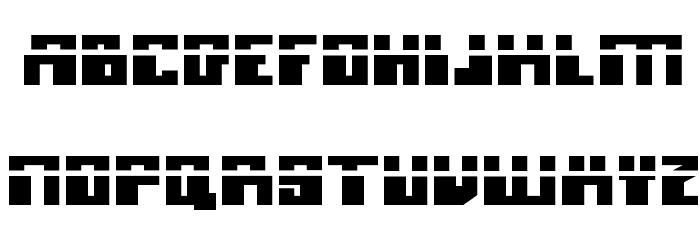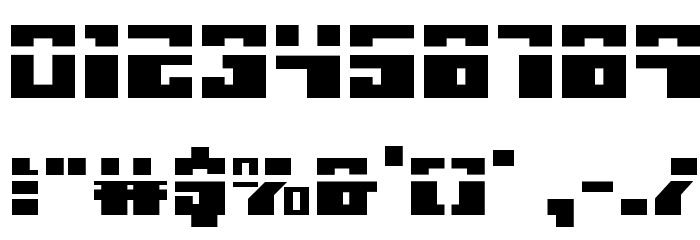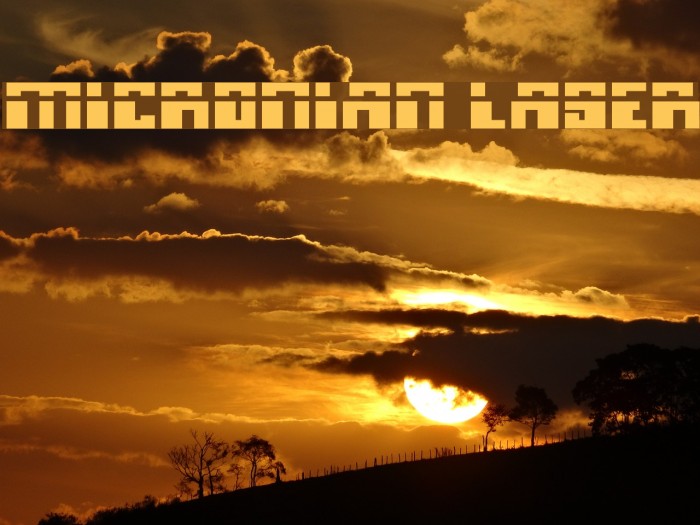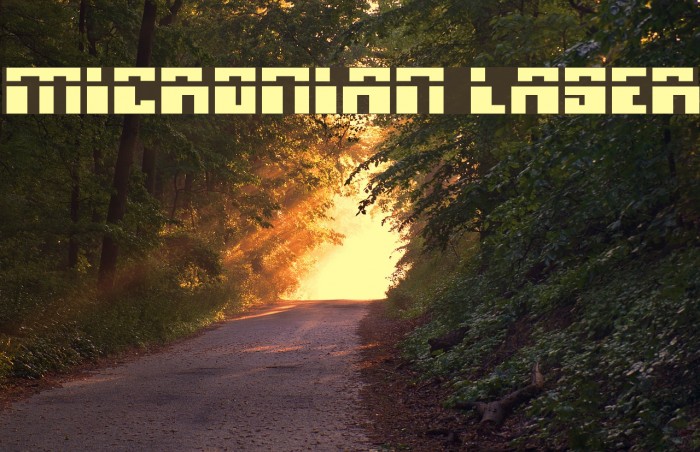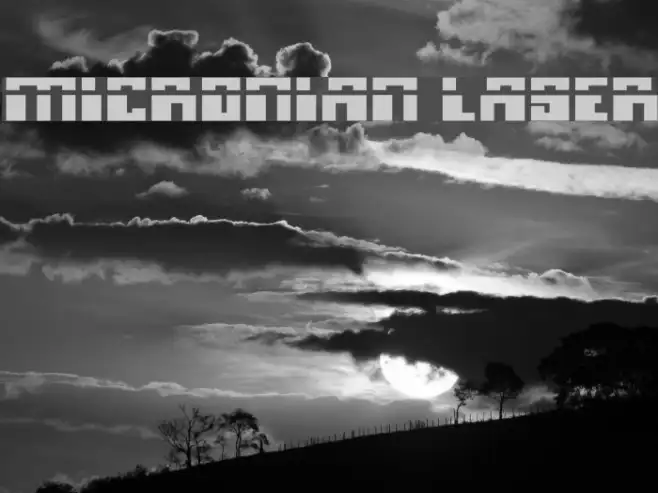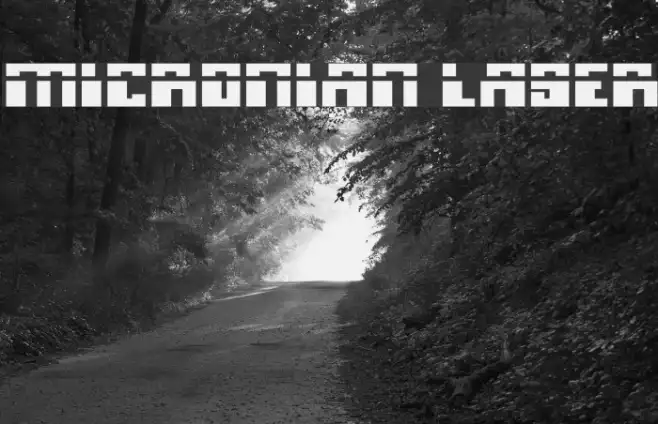
Micronian Laser Font
This font features a bold, geometric style with a futuristic and digital aesthetic. The characters are constructed with sharp, angular edges and a block-like appearance, creating a strong visual impact. The uppercase and lowercase letters maintain a consistent height, giving the font a uniform and cohesive look. The numerals and special characters follow the same design principles, ensuring a seamless integration across all text elements. The overall design is reminiscent of digital displays or sci-fi themes, making it ideal for projects that require a modern and technological feel.
A bold, geometric font with a futuristic, digital aesthetic.
- Font: Micronian Laser
- Proposed Projects: Ideal for technology-themed designs, video game graphics, sci-fi posters, and digital interfaces.